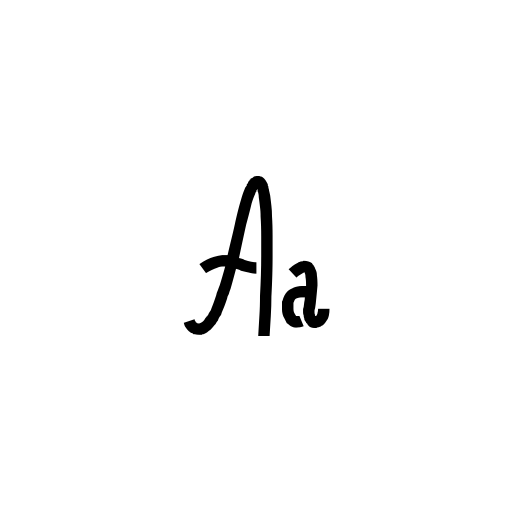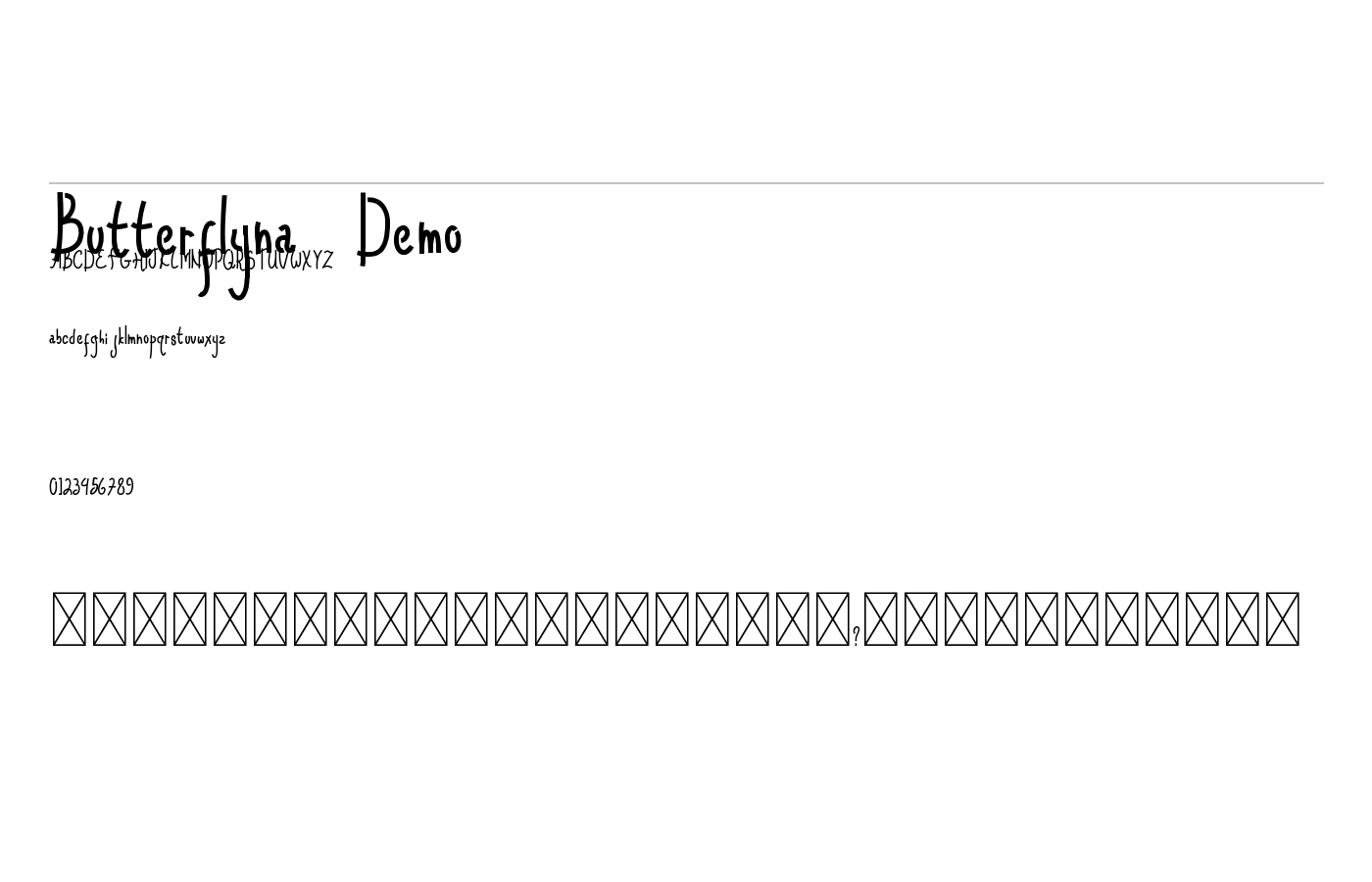
Butterflyna Demo is a whimsical, handwritten-style font characterized by tall, narrow letterforms with playful, uneven strokes that give it a lively and informal charm. Its lightweight, condensed appearance and quirky shapes make it perfect for creative projects, casual branding, and fun headlines where a unique, approachable personality is desired. This font works best in designs looking to convey friendliness and originality over formal or rigid impressions.
Butterflyna Demo Font
About Butterflyna Demo Font
| Font family | Butterflyna Demo Font |
| Designer | Rizki Ali Khoir |